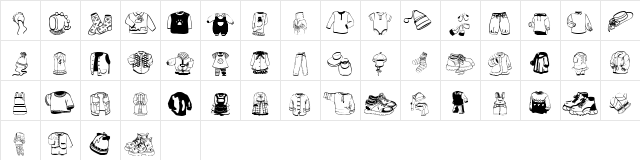
Baby Togs Regular Free Font
Baby Togs Regular
Design Context for Baby Togs
Baby Togs is a composed and adaptable typeface that performs quietly and consistently across a wide range of design contexts.